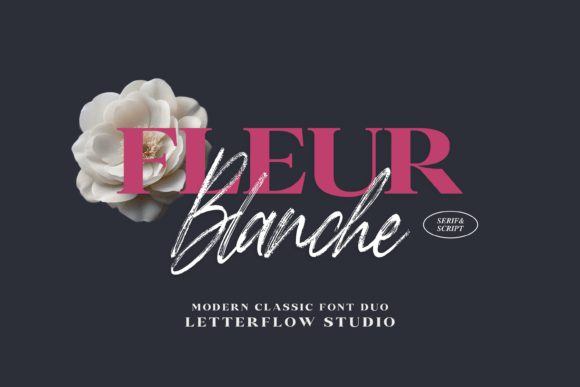
The Perfect Blend: Discovering the Fleur Blanche Font Duo
As a designer, there’s nothing quite like the thrill of bringing a new project to life. You’ve poured over inspiration boards, sketched out ideas, and finally settled on a concept that you can’t wait to share with the world. But, as you begin to bring your vision to the screen, you realize that something’s missing – a font that perfectly captures the essence of your design. This is where the Fleur Blanche Font comes in, a stylish duo that combines the elegance of a modern serif with the soft, artistic feel of a brush script.
This perfect balance of classic and modern makes the Fleur Blanche Font an invaluable tool for designers. With its versatility and sophistication, it’s the perfect choice for any project, from wedding invitations to brand identities. Whether you’re looking to add a touch of whimsy or a sense of luxury, the Fleur Blanche Font duo has got you covered.
Fleur Blanche Font Key Features
- Unique Characteristics: Fleur Blanche Font features elegant, cursive script with intricate details and subtle flourishes, making it ideal for formal and creative applications.
- Kerning and Ligatures: Fleur Blanche Font includes advanced kerning and ligature pairs, ensuring smooth text flow and professional typography.
Fleur Blanche Font Review
I recently had the chance to work with the Fleur Blanche Font, and I must say it’s a unique addition to any design project. Here’s my honest take on this beautiful font.
- The Fleur Blanche Font is incredibly elegant and sophisticated, making it perfect for high-end designs such as luxury brands or fine art.
- The font is highly customizable, allowing designers to adjust the style to suit their specific needs.
- The Fleur Blanche Font is also great for creating a sense of nostalgia and whimsy, making it ideal for designs that require a touch of vintage charm.
- The Fleur Blanche Font may not be the best choice for projects that require a lot of text or lengthy paragraphs, as it can become overwhelming.
Overall, I’m impressed with the Fleur Blanche Font’s unique style and versatility. While it may have some limitations, it’s definitely a great addition to any designer’s toolkit. I would recommend it for projects that require a touch of elegance and sophistication.
Tips for Getting the Most Out of Fleur Blanche
Use Fleur Blanche for elegant and sophisticated designs, particularly in invitations, wedding stationery, and high-end branding. Experiment with different font sizes and colors to create visual interest. Combine Fleur Blanche with other elegant fonts to create a harmonious design.
Fleur Blanche is ideal for:
- High-end branding and packaging
- Elegant event invitations and programs
- Formal business correspondence and documents
Alternatives to Fleur Blanche Font
Carolyna Pro is a elegant script font suitable for high-end fashion, luxury brands, and wedding invitations. It has a similar touch of sophistication and romance as Fleur Blanche, but with a more modern and refined feel.
Comparison: Carolyna Pro has a more uniform stroke width and a more flowing connection between letters, giving it a more contemporary look compared to the more vintage feel of Fleur Blanche.
Great Vibes is a beautiful script font ideal for creating a sense of excitement and energy. It’s perfect for music, art, and lifestyle brands that want to convey a fun and youthful vibe.